Unstoppable Impact: 20 Best Bold Sans Serif Font Options for Your Next Masterpiece
Finding the perfect Bold Sans Serif Font can completely transform a design from “just okay” to absolutely legendary. In this roundup, I’ve handpicked 20 powerhouses that I personally use to command attention, anchor branding, and give headlines that much-needed punch. Whether you’re after sleek futuristic vibes or rock-solid industrial weight, these fonts are the ultimate toolkit for any designer ready to make a serious statement in 2026.
1. Boka Bold Sans Serif Font
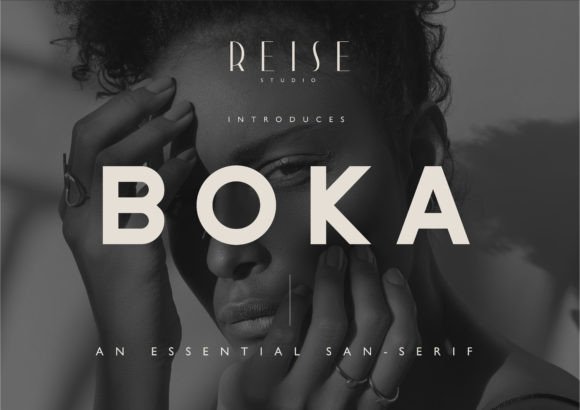
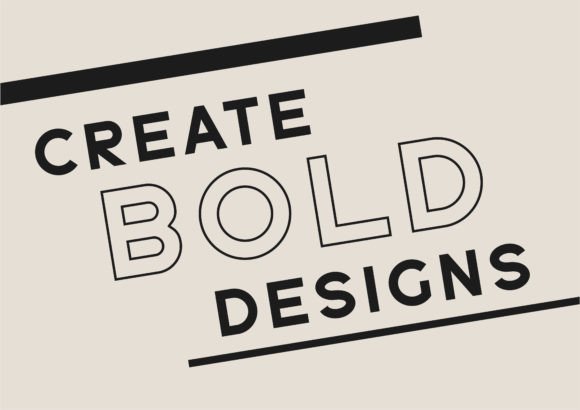
In my experience, finding a typeface that feels both powerful and refined is like catching lightning in a bottle, but Boka pulls it off effortlessly. This elegant Bold Sans Serif Font is my current favorite for creating striking, modern designs that need to command a room without being “loud.” What makes it so special to me as a designer is how the sleek lines and deliberate angles perfectly balance the raw strength of a heavyweight font with the sophisticated nuance of a more delicate one.
When I’m working on a project that requires high-impact headers or a minimalist brand identity, this Bold Sans Serif Font is always at the top of my list. It has a unique ability to look expensive and polished, providing a clean geometric structure that feels incredibly fresh in 2026. If you’re looking to elevate your creative work with a typeface that feels both authoritative and artfully crafted, Boka is a brilliant choice that delivers a professional, high-end finish every single time.
2. Sporta Bold Sans Serif Font
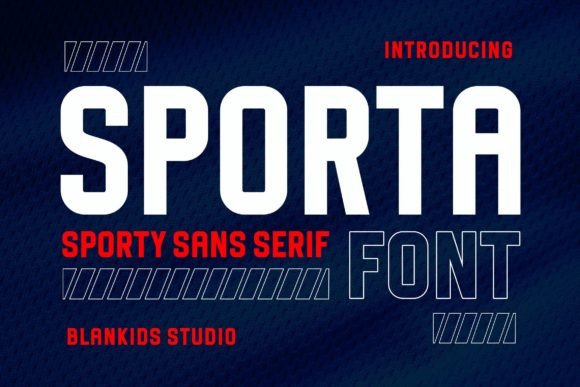
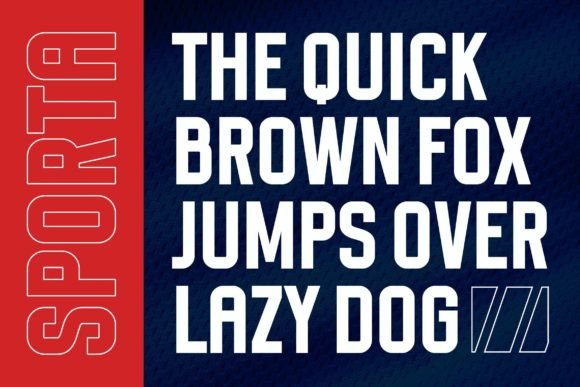
When a project calls for raw energy and an undeniable presence, Sporta is usually the first thing I pull from my library. This Bold Sans Serif Font is unapologetically strong and masculine, built with a heavy-duty structure that feels like it could anchor an entire brand on its own. It’s the kind of typeface that doesn’t just sit on a page; it commands it, making it an absolute powerhouse for any display work where you need to communicate grit and determination.
I’ve personally found that this Bold Sans Serif Font works wonders for high-impact posters, aggressive headlines, and digital banners that need to cut through the noise. Its clean yet heavy letterforms provide the perfect balance of readability and sheer weight, ensuring your message lands with maximum force. If you’re designing for sports branding, fitness apps, or any statement piece that requires a “hero” typeface, Sporta is a reliable choice that never backs down.
3. Kalua Bold Sans Serif Font
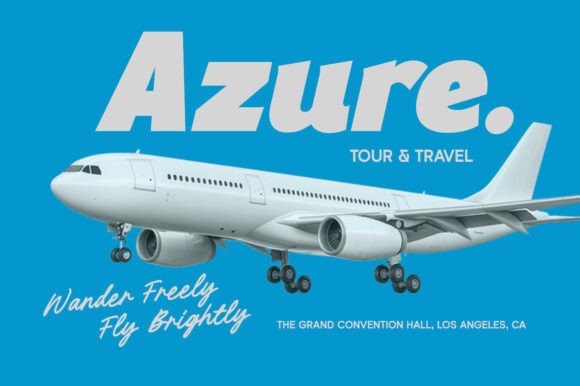
Sometimes I get tired of the “serious” corporate look and just want a typeface that feels like a party, and that’s exactly when I turn to Kalua. This Bold Sans Serif Font is a refreshing departure from the norm, masterfully blending chunky retro aesthetics with a modern, fluid energy. What I love most as a designer is its “smooth confidence”—it has an extremely heavy weight and exaggerated, organic curves that give it a playful, almost bubbly structure. It’s the kind of font that makes a solid statement while remaining completely approachable and friendly.
In my own studio work, I’ve found this Bold Sans Serif Font to be a total standout for food and beverage packaging, beach-inspired apparel, or any project that needs a bit of late-60s soul with a 2026 polish. Whether I’m using the regular, slanted, or rounded version, Kalua always adds a layer of warmth that industrial types just can’t touch. Plus, since it’s PUA-encoded, I can easily play with all the glyphs to make my custom headers feel truly one-of-a-kind. If you’re looking to inject your brand with a sense of fun and inviting energy, Kalua is my top recommendation.
4. Rincoln Bold Sans Serif Font
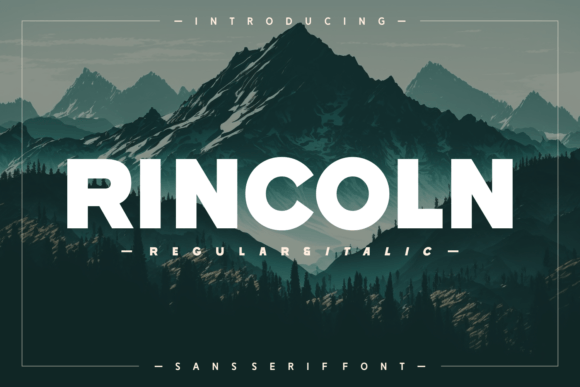
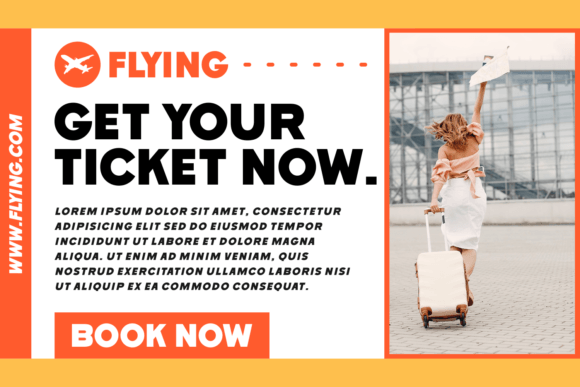
When a project demands a look that is “neat” but still hits like a heavyweight, Rincoln is my go-to. This Bold Sans Serif Font exudes a level of strength and confidence that is hard to find in more decorative faces. I’m particularly fond of its clean, straight lines and geometric precision; they create a sleek, modern appearance that feels incredibly organized. Because of its consistent stroke weight and perfectly balanced letter spacing, it maintains high readability whether I’m using it for a massive billboard or a compact mobile app interface.
As a designer, what I appreciate most about this Bold Sans Serif Font are the unique character shapes and subtle details that keep it from feeling like “just another” geometric type. It has a distinctive personality that makes it ideal for branding and editorial work where you need to make a bold, impactful statement without any unnecessary clutter. If you are looking for a typeface that communicates reliability and modern sophistication with an unmistakable presence, Rincoln should definitely be in your rotation.
5. Vova Bold Sans Serif Font
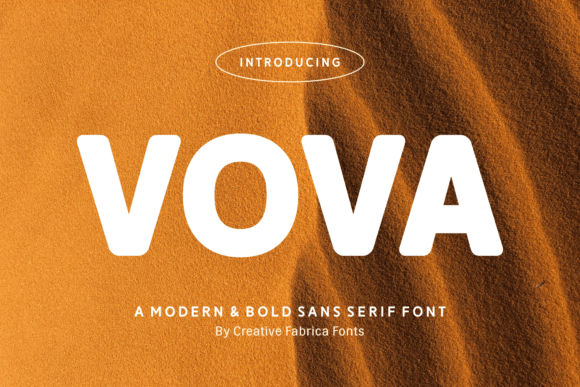
When a project calls for a clean, “no-nonsense” impact, Vova is the first tool I grab from my kit. This Bold Sans Serif Font is the epitome of modern strength, designed specifically for those moments where your typography needs to do the heavy lifting. I’m a huge fan of its ultra-clean edges and strong letterforms; they provide a contemporary style that feels incredibly grounded yet forward-thinking. It’s a typeface that doesn’t just fill space—it demands attention with a sleek, professional flair.
In my own design experiments, I’ve found this Bold Sans Serif Font to be remarkably versatile. Whether I’m crafting a minimalist logo that needs to scale down perfectly or a massive poster headline that needs to stop people in their tracks, Vova’s balanced proportions ensure total readability. It’s that rare “workhorse” font that manages to look sophisticated and high-end while maintaining a raw, impactful energy. If your branding project needs a boost of modern confidence, Vova is a choice you won’t regret.
6. Urban Space Bold Sans Serif Font
When I’m working on a project that needs to feel “street-smart” and physically heavy, Urban Space is usually the first Bold Sans Serif Font I test in my layouts. There’s a certain architectural weight to this typeface that makes it feel like it was built rather than just drawn. It’s unapologetically thick, making it a perfect candidate for logotypes and headlines that need to anchor a brand’s identity with a solid, unshakeable presence.
In my own studio work, I’ve found this Bold Sans Serif Font to be an incredibly versatile chameleon. I’ve dropped it into everything from high-energy gaming UI and movie posters to clean corporate identities and Instagram editorial spreads. It has this unique ability to look “industrial-cool” one minute and “playfully bold” the next, especially in industries like apparel or music where you need to stand out. If you’re looking for a typeface that can handle the grit of an urban landscape while maintaining professional polish, Urban Space is a top-tier choice for your creative arsenal.
7. Softrock Bold Sans Serif Font
In my design process, I often look for a typeface that provides high-impact weight without feeling overly aggressive, and Softrock hits that sweet spot perfectly. This Bold Sans Serif Font features a thick, stylish appearance that feels remarkably polished, likely because it was crafted with such meticulous attention to detail. I’m always impressed by how “neat” the letterforms remain even at their heaviest weights, making it a reliable choice for when I need to balance sheer volume with a clean, professional aesthetic.
I personally find this Bold Sans Serif Font to be a versatile powerhouse for everything from bold social media quotes and headlines to intricate label and packaging designs. Its stylish structure ensures that it stays legible and visually interesting, whether it’s anchoring a minimalist logo or providing the backbone for a complex piece of lettering. If you’re searching for a typeface that brings a solid, premium feel to your creative projects while maintaining a contemporary edge, Softrock is an essential addition to your digital library.
8. Hexos Bold Sans Serif Font
Stepping into the world of high-tech aesthetics often requires a typeface that feels like it was engineered rather than just drawn, and Hexos is exactly that. This Bold Sans Serif Font is the definition of “cool,” exuding a sense of modernity and raw strength that is hard to ignore. I’m particularly obsessed with its geometric shapes and sharp, precise edges—they give the letterforms a contemporary, edgy vibe that feels like it’s straight out of a luxury streetwear brand or a cutting-edge startup.
In my own design experiments, I’ve found that this Bold Sans Serif Font commands attention unlike anything else, making it an absolute go-to for headlines, logos, and branding that need to feel ahead of their time. It adds a sophisticated, sharp-witted touch to any layout while maintaining the versatility needed for impact across different platforms. If you want your design to speak with authority and a futuristic style, Hexos is the perfect choice to elevate your creative game.
9. Cilker Bold Sans Serif Font
Imagine a typeface that carries enough weight to anchor a massive billboard but still feels lighthearted enough for a trendy café menu—that’s the magic of Cilker. This Bold Sans Serif Font is a masterclass in modern display design, utilizing thick strokes and confident, playful shapes to ensure your message is heard loud and clear. I’m particularly drawn to its clean construction; it provides that “instant standout” factor without sacrificing the professional polish required for high-end marketing campaigns.
From a practical design standpoint, having access to both uppercase and lowercase in such a heavy Bold Sans Serif Font makes my workflow incredibly smooth, especially for complex branding and packaging. It’s my top recommendation for projects centered around lifestyle, food, or youth-oriented brands where energy and clarity are non-negotiable. Whether you’re crafting social media graphics or physical promotional materials, Cilker brings a contemporary edge that feels fresh, inviting, and undeniably impactful.
10. Paper Look Bold Sans Serif Font
Every now and then, I come across a typeface that feels like the “little black dress” of my font library—versatile, timeless, and always appropriate—and Paper Look fits that description to a T. This Bold Sans Serif Font is a masterclass in geometric precision, offering a clean, professional aesthetic that I find myself leaning on for my most sophisticated projects. Its balanced proportions and solid weight provide a level of clarity that’s hard to beat, making it an exceptional candidate for dominant headlines or minimalist editorial layouts where the typography needs to do all the talking.
What I truly appreciate as a designer is how this Bold Sans Serif Font delivers strength without feeling bulky or overbearing. It carries a sleek, contemporary vibe that transitions effortlessly from a high-resolution digital interface to a physical print medium. Whether I’m building a corporate brand identity or a sleek poster, Paper Look ensures the message is wrapped in an aura of sophistication. If you’re hunting for a typeface that embodies modern professional style while maintaining a heavy visual impact, this is one of the most reliable tools you can have in your arsenal.
11. Patriotic Bold Sans Serif Font
There’s a specific kind of project that requires a “straight-talk” approach, and Patriotic is the font I reach for when I need to convey absolute sincerity. This Bold Sans Serif Font features a clean, straightforward style that feels incredibly dependable, almost as if it’s rooted in tradition while remaining completely modern. It carries an inherent sense of pride and honor, which makes it my top choice for designs that need to feel grounded, authoritative, and respectful all at once.
In my daily creative sessions, I’ve found this Bold Sans Serif Font to be a powerhouse for tangible products—think statement t-shirts, mugs, or heavy-duty tote bags where the message needs to be the hero. Its strong letterforms create a high-impact presence on posters and backgrounds, ensuring that any quote or headline is delivered with maximum conviction. If your next branding project or merchandise line needs to speak with a voice that is both bold and undeniably honest, Patriotic is a fantastic asset to have on your side.
12. Rushtime Bold Sans Serif Font
Whenever a client asks for a design that “commands the room,” Rushtime is usually the first typeface I load onto my canvas. This Bold Sans Serif Font is a master of assertion, featuring heavy letterforms and razor-clean lines that communicate with absolute clarity and impact. I’ve found that it acts as a perfect visual anchor for everything from high-stakes corporate presentations to sleek app interfaces where every pixel of readability counts.
What I personally love about this Bold Sans Serif Font is its sheer versatility across both digital and physical media. I’ve used it to create attention-grabbing flyers and business cards that feel substantial in the hand, but it’s equally effective for bold website headers and packaging designs that need to pop on a crowded shelf. If you’re looking to build a brand identity that feels modern, confident, and impossible to ignore, Rushtime is a reliable workhorse that brings a sophisticated edge to any creative project.
13. Huge Promo Bold Sans Serif Font
Sometimes a standard heavyweight just isn’t enough, and that’s exactly when I pull out Huge Promo. This Bold Sans Serif Font features an extra-thick body that feels tailor-made for those high-energy moments where your typography needs to act as a visual shout. I’ve found it’s the ultimate “hook” for promotional graphics and social media content; its massive presence ensures that your key message is the first thing a viewer sees, even when they’re scrolling at lightning speed.
In my personal workflow, I love using this Bold Sans Serif Font for everything from punchy logo marks to modern event invitations that need a bit of “oomph.” It has a clean yet undeniably dominant structure that makes it a dream for headlines, providing a solid foundation for any layout that demands immediate attention. If you’re looking to create a design that feels loud, proud, and professionally polished, Huge Promo is a fantastic addition to your creative toolkit.
14. Greeva Bold Sans Serif Font
Finding a typeface that feels effortless yet impactful can be a challenge, but Greeva makes it look easy. This Bold Sans Serif Font is the definition of “simple but effective,” offering a clean, unpretentious structure that acts as a perfect canvas for your creative ideas. I’ve personally found that its strength lies in its minimalism; because it lacks distracting flourishes, it allows the actual message to take center stage while still providing that satisfying visual weight I look for in a display face.
What really makes this Bold Sans Serif Font a staple in my design library is its incredible adaptability. I can drop it into a minimalist website header one day and a high-energy packaging project the next, and it never feels out of place. It’s one of those rare “chameleon” fonts that manages to stand out by simply being incredibly well-balanced. If you’re looking for a reliable, no-nonsense typeface that will instantly elevate the professionalism of your layout, Greeva is a choice you’ll find yourself returning to time and time again.
15. Elegant Bold Sans Serif Font
Naming a typeface “Elegant” is a bold move, but after using it in a few of my recent branding concepts, I have to say it absolutely lives up to the title. This Bold Sans Serif Font manages to strip away the clunky nature of traditional heavyweights, replacing it with a refined precision and clean shapes that feel incredibly high-end. In my studio, I find myself reaching for this whenever I need to bridge the gap between “strong visual impact” and “sophisticated polish,” making it a perfect fit for luxury packaging or high-fashion editorial layouts.
What I love most as a designer is how this Bold Sans Serif Font is built for the spotlight—it’s a typeface where the typography truly takes center stage. Because it was crafted with such sharp attention to detail, it scales beautifully from a tiny logo mark to a massive street poster without losing its professional aesthetic. Plus, since it supports multilingual characters and comes in all the standard formats, it’s a seamless addition to any modern workflow. If your design direction is minimalist yet demands a powerful presence, Elegant is the secret weapon you’ve been looking for.
16. Quadline Bold Sans Serif Font
Every designer needs a “power hitter” in their collection, and for me, Quadline is exactly that. This Bold Sans Serif Font is built with an inherent sense of strength and structural integrity that makes it feel virtually indestructible on the page. I love using it when a project requires a commanding presence but can’t afford to sacrifice an ounce of readability. Its clean, striking style acts as a visual magnet, capturing the viewer’s eye and holding it there with a sophisticated, heavy-duty aesthetic.
In my personal projects, I’ve found that this Bold Sans Serif Font offers a brilliant balance between raw creativity and clinical clarity. Whether I’m designing a poster that needs to “pop” from across a room or crafting bold social media graphics that need to look sharp on a small screen, Quadline delivers a powerful visual punch every time. It’s the kind of versatile display face that makes headlines feel authoritative and branding projects feel grounded. If you’re looking to inject some serious muscle into your editorial layouts, Quadline is a choice that never fails to impress.
17. Soment Bold Sans Serif Font
There’s a specific kind of confidence that only a perfectly balanced typeface can project, and Soment hits that mark every single time. This Bold Sans Serif Font carries a strong, modern personality that I find myself gravitating toward whenever a project needs to feel “grounded” but not dated. Its solid letterforms and clean lines are a dream to work with, especially for powerful headlines where you need every character to carry its own weight without looking cluttered.
In my experience, what makes this Bold Sans Serif Font such a staple for impactful branding and logo design is its uncanny ability to maintain excellent readability across the board. Whether I’m pushing the boundaries of a large-scale poster or shrinking a mark down for a mobile app icon, Soment ensures the message remains razor-sharp in both print and digital formats. If you’re hunting for a typeface that brings a sense of reliability and a “big brand” feel to your creative toolkit, Soment is an absolute standout.
18. Hipo Bold Sans Serif Font
Lately, I’ve been obsessed with finding that elusive middle ground between “heavy-duty” and “high-fashion,” and Hipo is exactly the kind of Bold Sans Serif Font that nails that aesthetic. It’s built with these incredibly confident, clean shapes that give off a strong identity without feeling clunky. When I’m working on luxury packaging or a fashion editorial, I need a typeface that feels both expensive and approachable, and Hipo’s sleek construction brings that “cool font” energy to the table every time.
What really sets this Bold Sans Serif Font apart for me is its sheer versatility as a branding tool. It works beautifully as a primary logo font, but because it includes both uppercase and lowercase with extended Latin support, I can use it across an entire brand ecosystem—from digital social media campaigns to physical merchandise. It’s a rare find that combines the punch of a display face with the elegance of a luxury typeface. If you’re looking to elevate a project with a touch of modern sophistication and bold elegance, Hipo is a must-have in your creative arsenal.
19. Maxel Bold Sans Serif Font
Sometimes a project needs to feel like it’s been pulled straight from a sci-fi blockbuster, and that’s when I turn to Maxel. This Bold Sans Serif Font is a masterclass in futuristic styling, blending sleek lines with a powerful presence that feels incredibly cutting-edge. I’ve found it to be a complete game-changer for techno-inspired aesthetics and gaming UI, where you need a typeface that doesn’t just sit there but actually drives the energy of the entire design forward.
What’s truly impressive about this Bold Sans Serif Font is how it manages to feel “space-age” without becoming unreadable. It’s got a strong, versatile character that makes it a natural fit for standout branding and logos that want to signal innovation and strength. Whether I’m working on a high-concept poster or a modern tech startup’s identity, Maxel provides that contemporary punch that elevates a creative vision from ordinary to extraordinary. If you’re looking for a font that speaks the language of tomorrow, this is definitely the one to grab.
20. Vaulto Black Bold Sans Serif Font
When I need a typeface that acts like a solid anchor for a layout, Vaulto Black is my immediate go-to. This Bold Sans Serif Font is unapologetically thick and simple, stripping away any unnecessary distractions to focus on pure, unadulterated weight. In my own design practice, I’ve found that its “black” weight provides a satisfying density that makes headlines feel incredibly grounded and permanent, which is exactly what you want when building a brand that needs to project stability and power.
The beauty of this Bold Sans Serif Font lies in its “plug-and-play” nature—it’s so clean and straightforward that it effortlessly matches an incredibly wide range of creative projects. Whether I’m dropping it into a heavy-duty industrial poster or using it to create a high-contrast social media quote, Vaulto Black has this unique way of making everything around it stand out. If you’re looking for a reliable, “no-frills” heavyweight that delivers maximum impact with zero effort, this font belongs at the very top of your list.
Conclusion
Choosing the right Bold Sans Serif Font is all about matching the soul of your project to the weight of the letterforms. I hope this selection helps you find that one “perfect fit” to elevate your creative work and leave a lasting impression. Remember, great design doesn’t just speak—it resonates. Now, go grab your favorite from the list and start building something truly iconic. I can’t wait to see what you create with these heavy-hitting typefaces!